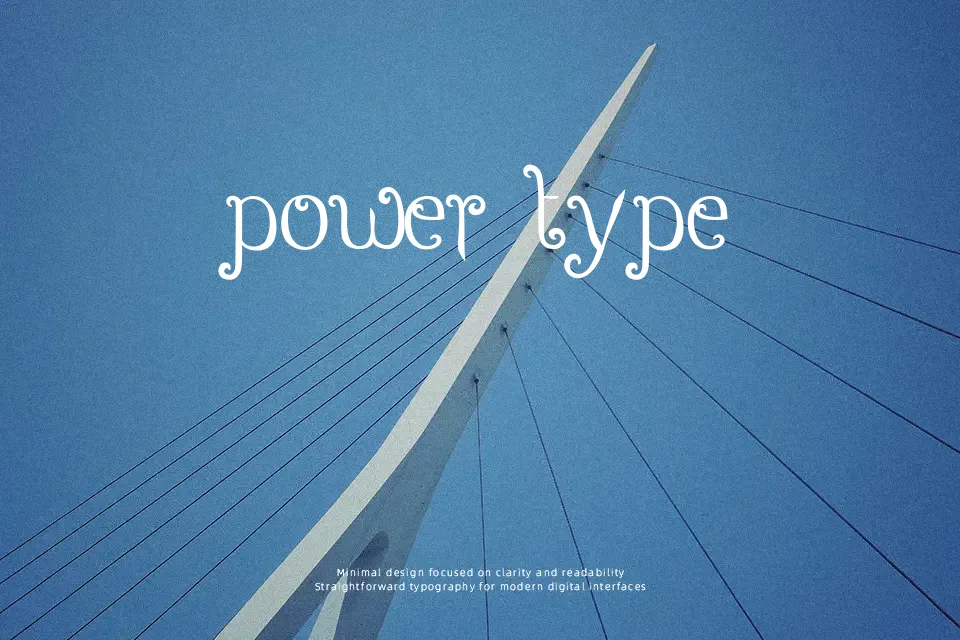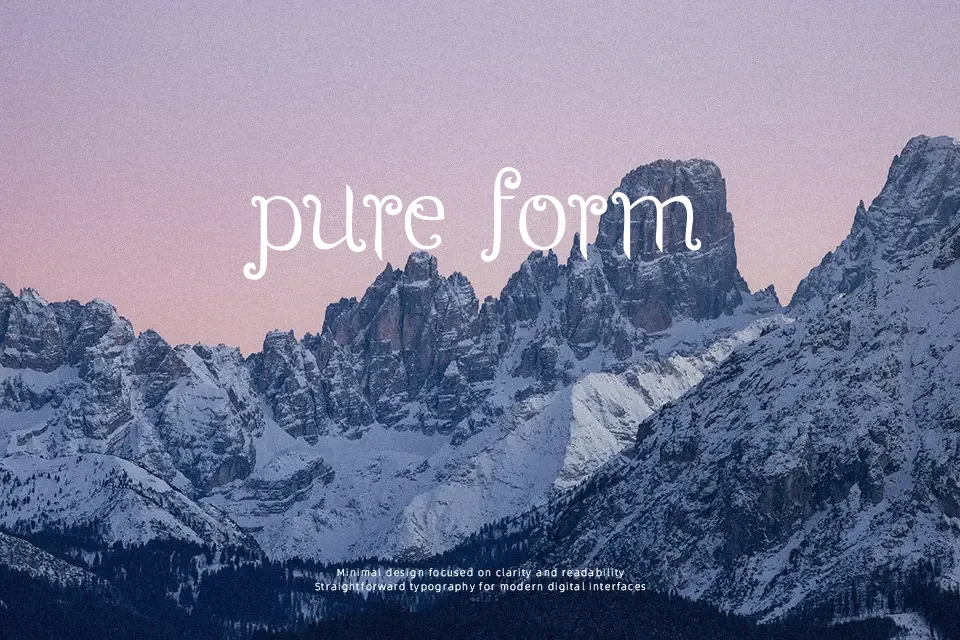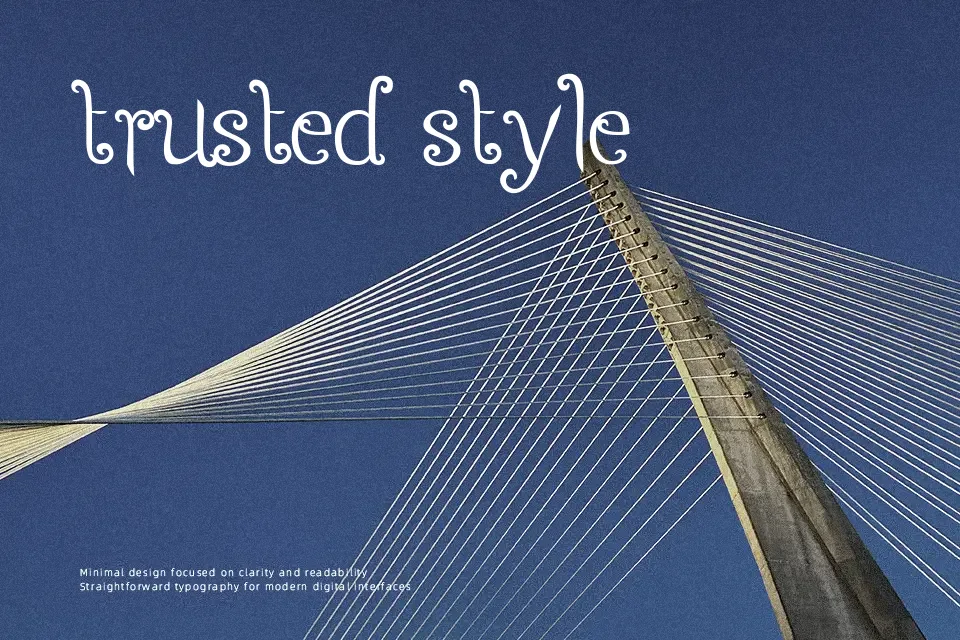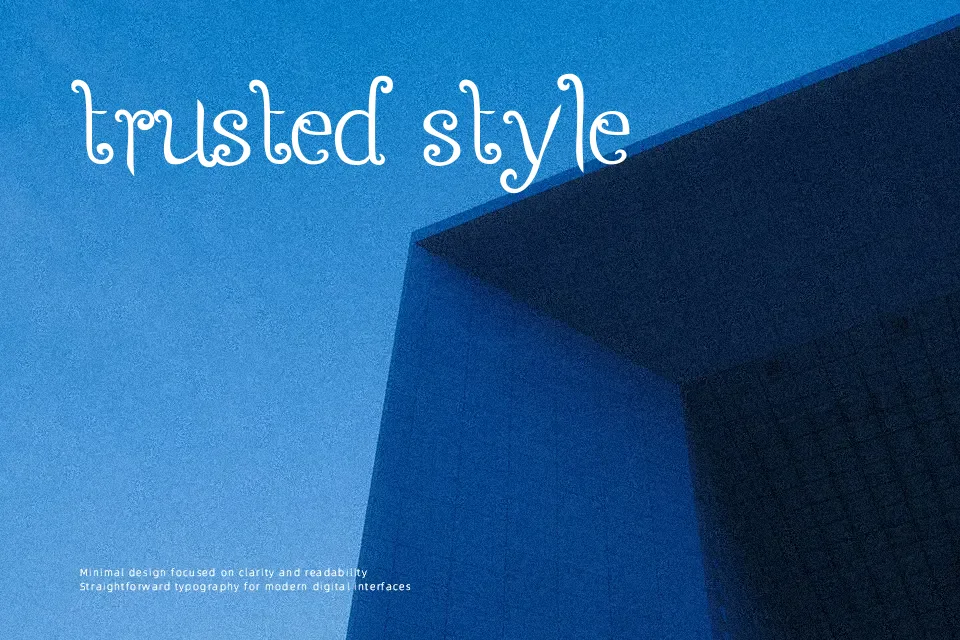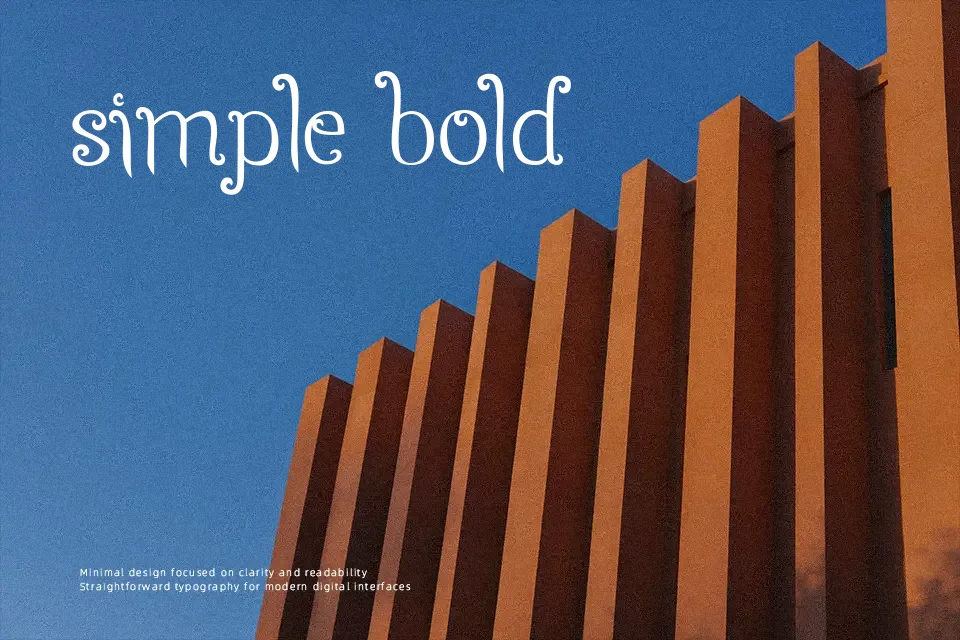
Seasons-Spring Font
Designed by Cat Neligan
The ornamental geometry of Seasons-Spring Font showcases looping strokes, coiled terminals, and informal character widths that establish an expressive decorative rhythm. Uniform line weights preserve stroke consistency across uppercase and lowercase sets, while open letter spacing prevents elaborate curls from colliding in short titles. The letterforms remain easy to distinguish when scaled for children’s book titles, craft packaging, and celebratory event banners. However, intricate flourishes significantly reduce legibility across extended paragraphs and small interface captions. The typeface performs best when displayed at larger sizes, where its whimsical details enhance focal headings without compromising reading flow.
Best For: spring festival posters,greeting card headlines,children craft packaging,party invitation titles
Not Ideal For: continuous body text,mobile ui interfaces,legal documentation,dense editorial layouts
Perfect for headline, holiday, and invitation, with a artistic and decorative style.